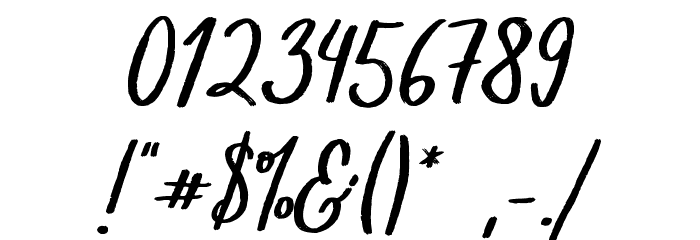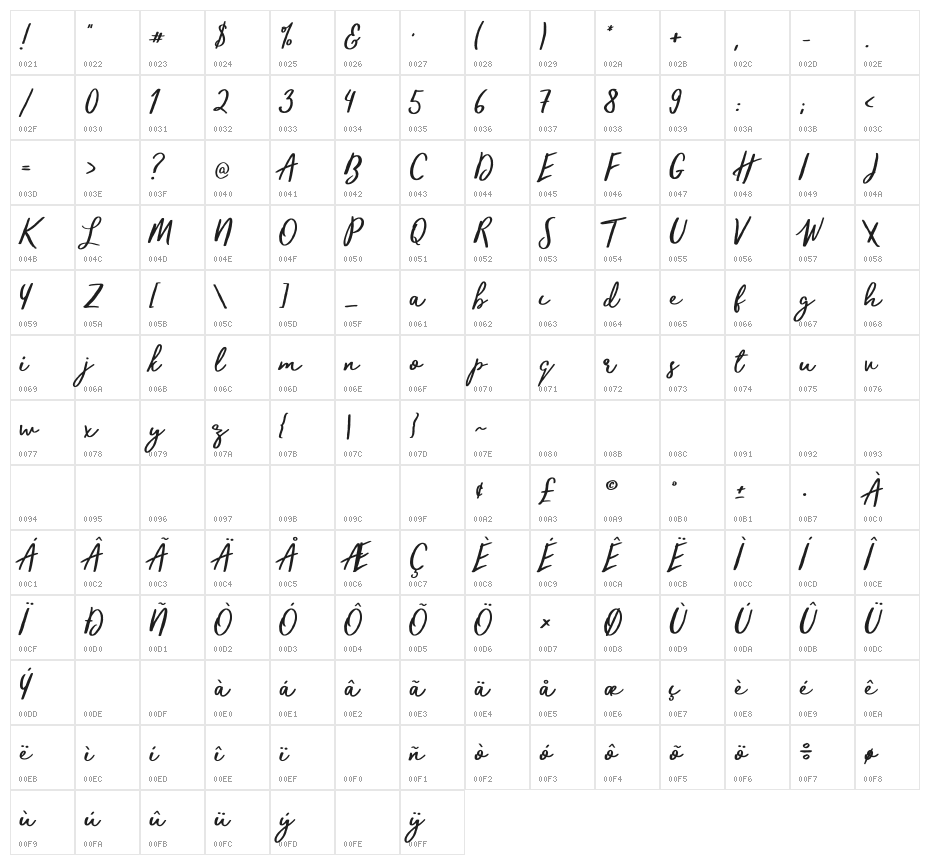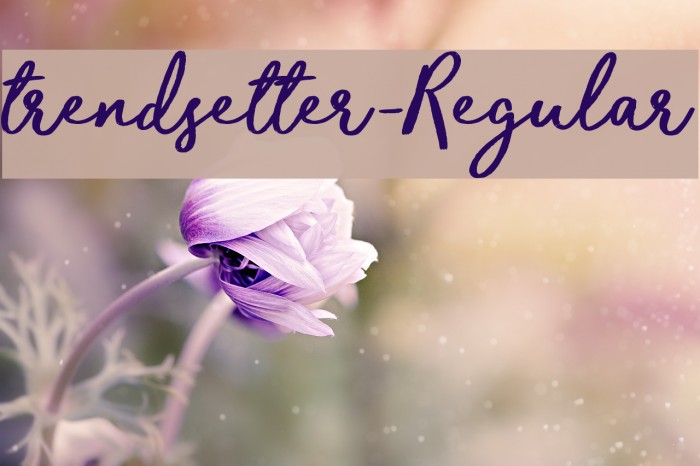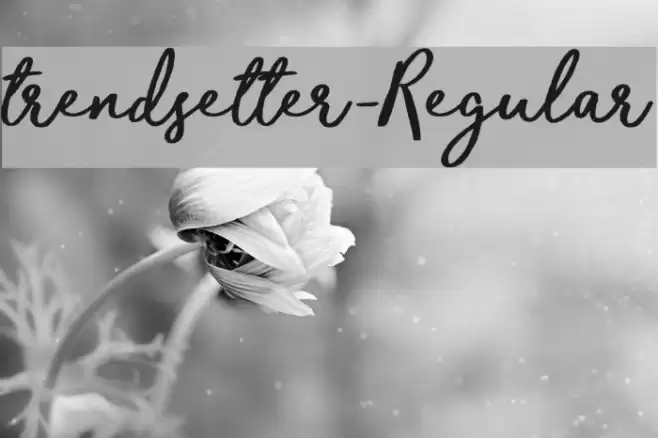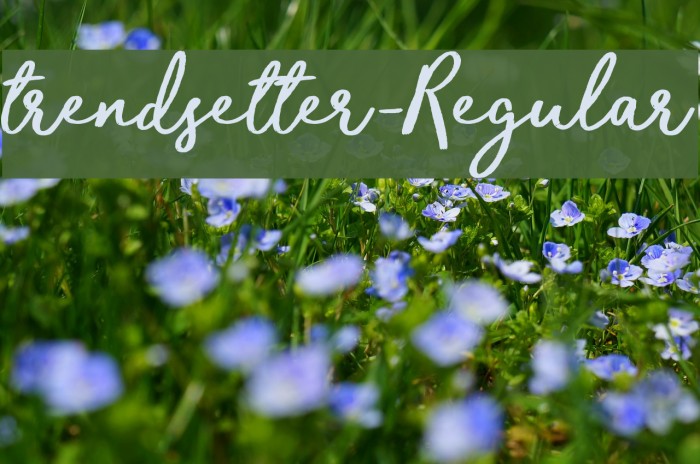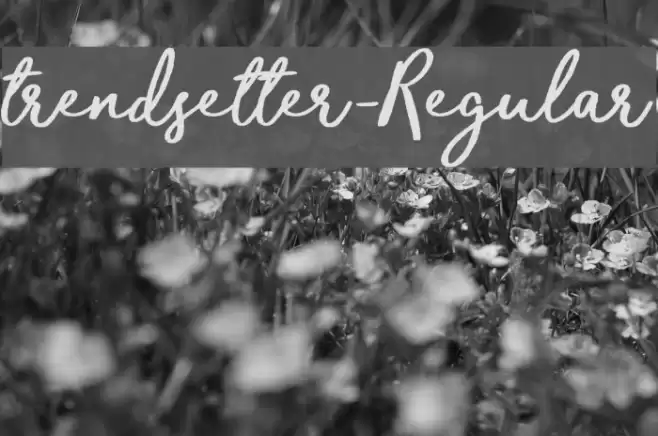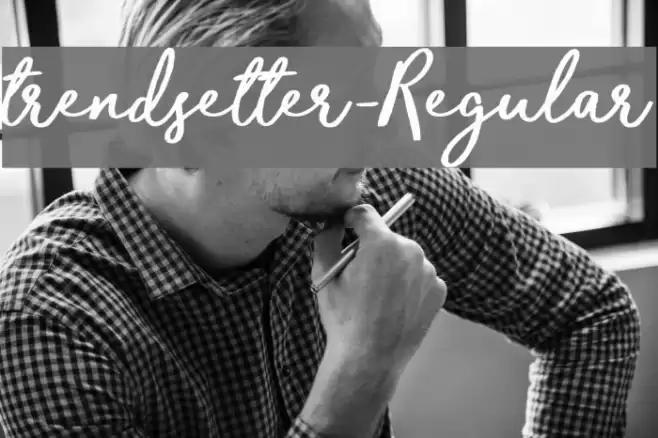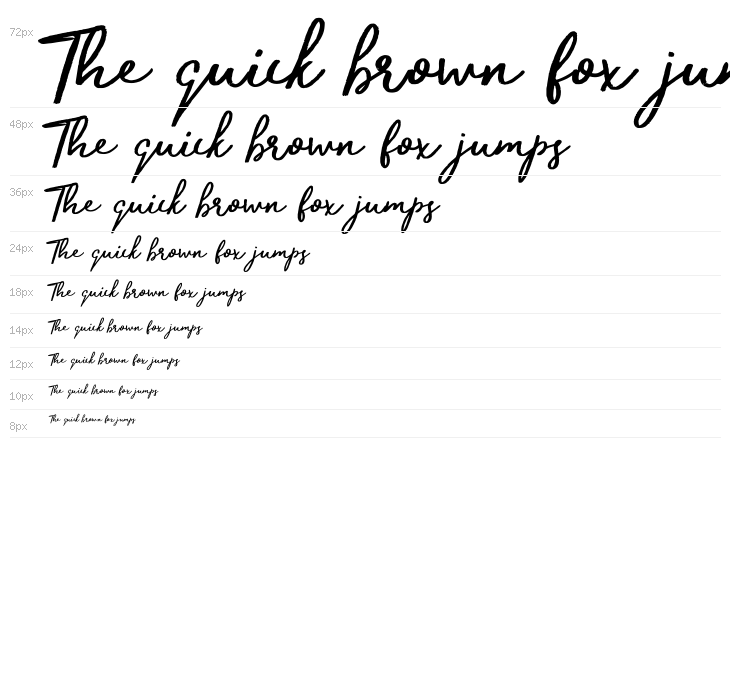
trendsetter-Regular Font
trendsetter-Regular Description
This font exudes a lively and dynamic energy with its handwritten style, characterized by fluid, cursive strokes that convey a sense of movement and spontaneity. The uppercase letters are bold and slightly slanted, adding a touch of elegance and flair. The lowercase letters maintain a consistent flow, with smooth connections between characters, enhancing readability while preserving the artistic feel. Numbers and special characters are crafted with the same attention to detail, ensuring a cohesive look across all elements. The overall design is both modern and playful, making it suitable for creative projects that require a personal touch.